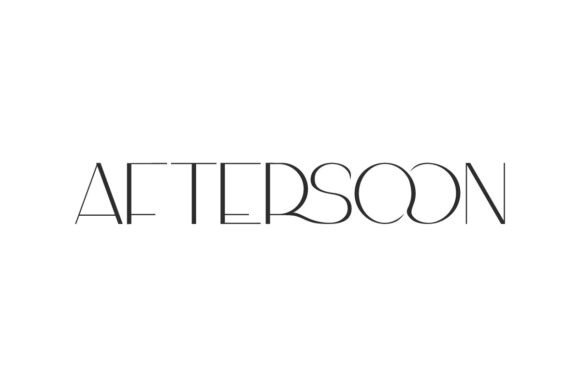
Aftersoon Font: Elevate Your Designs with Elegance and Sophistication
In the world of typography, fonts play a crucial role in conveying the tone and personality of a brand, product, or editorial. When it comes to creating a lasting impression, the right font can make all the difference. This is where Aftersoon Font comes in – a sleek, elegant, and minimalist typeface that embodies contemporary flair. In this article, we’ll delve into the world of Aftersoon Font, exploring its features, applications, and the value it brings to designers, brands, and creatives.
The Essence of Aftersoon Font
Aftersoon Font is a masterfully crafted typeface that exudes sophistication and refinement. Its letterforms are designed to perfection, boasting clean lines, subtle curves, and a balanced structure that screams elegance. This font is the epitome of modern design, making it an ideal choice for those seeking to add a touch of class to their projects.
Whether you’re working on branding, fashion editorials, invitations, or luxury product designs, Aftersoon Font is the perfect companion. Its versatility and adaptability make it suitable for a wide range of applications, from digital platforms to print materials.
Key Features of Aftersoon Font
- Sleek and Elegant Design: Aftersoon Font boasts a sleek and elegant design that is sure to turn heads. Its refined letterforms and balanced structure make it perfect for high-end branding and luxury product designs.
- Minimalist Approach: This font takes a minimalist approach to typography, focusing on clean lines, simple shapes, and a limited color palette. The result is a sophisticated and understated typeface that lets your content shine.
- Contemporary Flair: Aftersoon Font has a distinctly contemporary feel, making it perfect for modern brands and designs. Its unique blend of classic and modern elements sets it apart from other fonts in the market.
- High Versatility: This font is incredibly versatile, making it suitable for a wide range of applications, from digital platforms to print materials.
Applications of Aftersoon Font
Aftersoon Font is an incredibly versatile typeface that can be used in various contexts. Here are some of the most popular applications:
- Branding: Aftersoon Font is perfect for branding and logo design, particularly for luxury brands, fashion labels, and high-end products.
- Fashion Editorials: This font is a great choice for fashion editorials, adding a touch of sophistication and elegance to your content.
- Invitations: Aftersoon Font is ideal for creating stylish and sophisticated invitations for weddings, events, and parties.
- Luxury Product Designs: This font is perfect for luxury product designs, including packaging, labels, and marketing materials.
Benefits of Using Aftersoon Font
Using Aftersoon Font in your designs comes with a range of benefits, including:
- Enhanced Visual Appeal: Aftersoon Font adds a touch of elegance and sophistication to your designs, making them more visually appealing.
- Increased Legibility: This font is designed for maximum legibility, ensuring that your content is easy to read and understand.
- Improved Brand Perception: Aftersoon Font can help elevate your brand’s perception, making it appear more luxurious, sophisticated, and high-end.
- Versatility: This font is incredibly versatile, making it suitable for a wide range of applications and design contexts.
Tips for Using Aftersoon Font Effectively
To get the most out of Aftersoon Font, here are some tips to keep in mind:
- Use it Sparingly: Aftersoon Font is best used sparingly, as a headline font or for highlighting important information.
- Pair it with Other Fonts: This font pairs well with other sans-serif fonts, creating a harmonious and balanced design.
- Experiment with Colors: Aftersoon Font looks great in a range of colors, from neutral tones to bold and bright hues.
- Pay Attention to Kerning: Make sure to adjust the kerning to ensure that the font looks balanced and visually appealing.
Aftersoon Font is a truly exceptional typeface that can elevate your designs to new heights. Its sleek, elegant, and minimalist design makes it perfect for branding, fashion editorials, invitations, and luxury product designs. With its high versatility, contemporary flair, and sophisticated letterforms, Aftersoon Font is an excellent choice for designers, brands, and creatives seeking to add a touch of class to their projects.
- What is Aftersoon Font? Aftersoon Font is a sleek, elegant, and minimalist typeface with a contemporary flair.
- What is Aftersoon Font used for? Aftersoon Font is perfect for branding, fashion editorials, invitations, and luxury product designs.